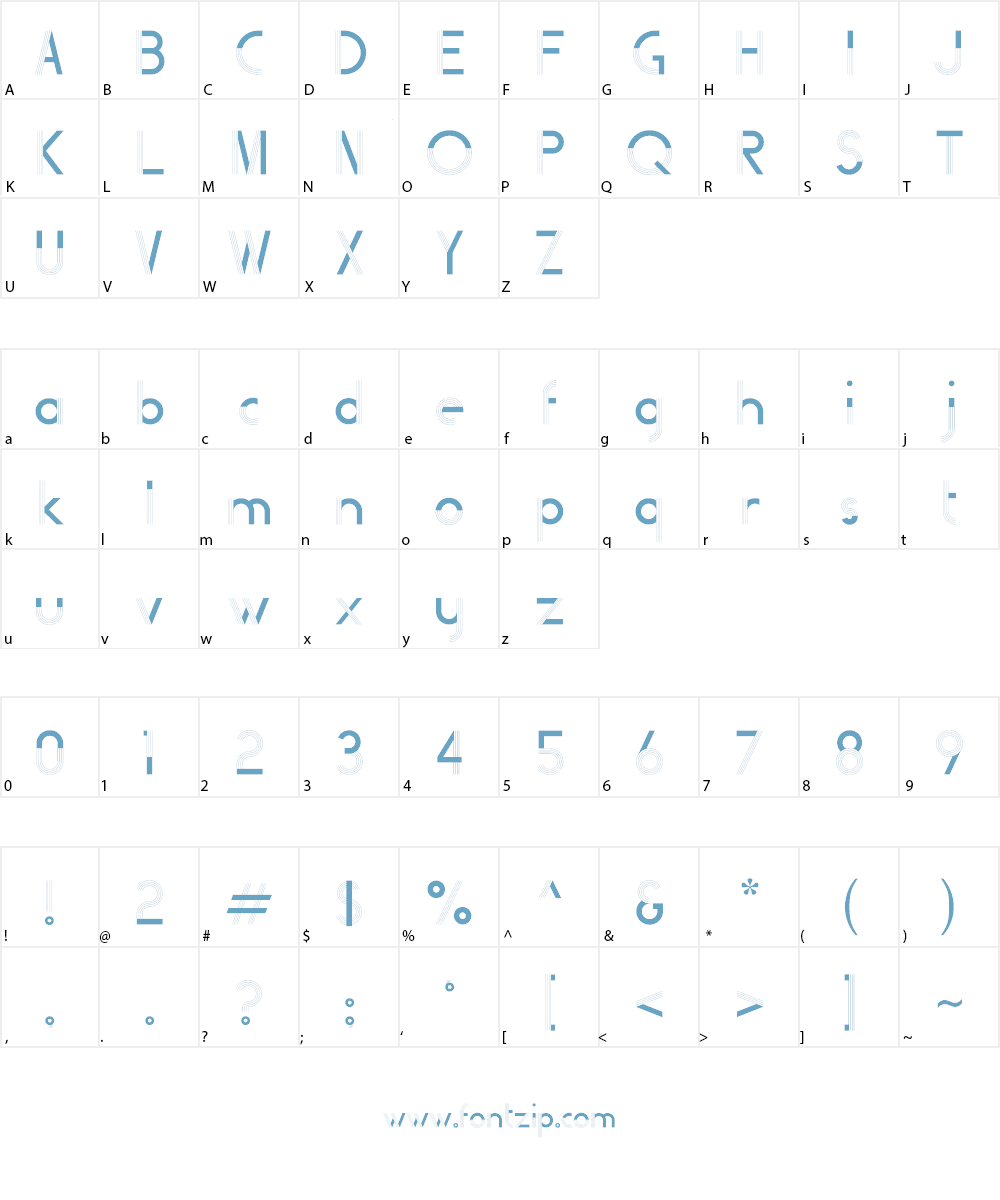
Zebra is only a display and recommended print font. Otherwise, use it where you like it.
Zebra is a contemporary display font like, 'prisma' and 'monoton'.
Zebra is a pure display font designed to be used above 60pt. It is a dual face font.
This font is inspired by zebra crossing.
(its not a web font due to its sleek lines)